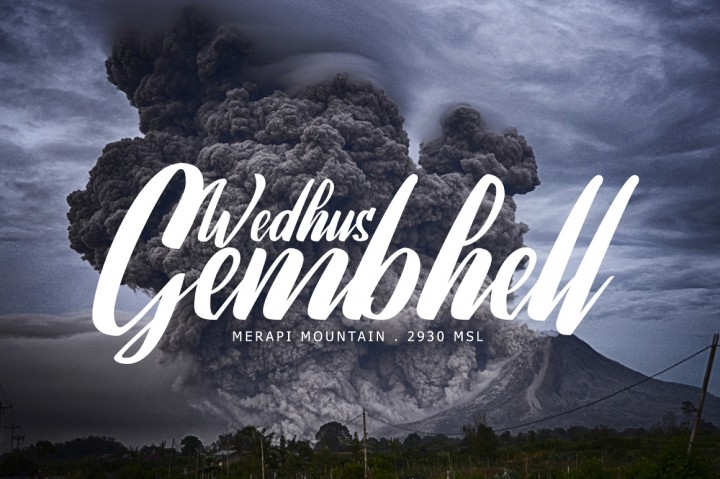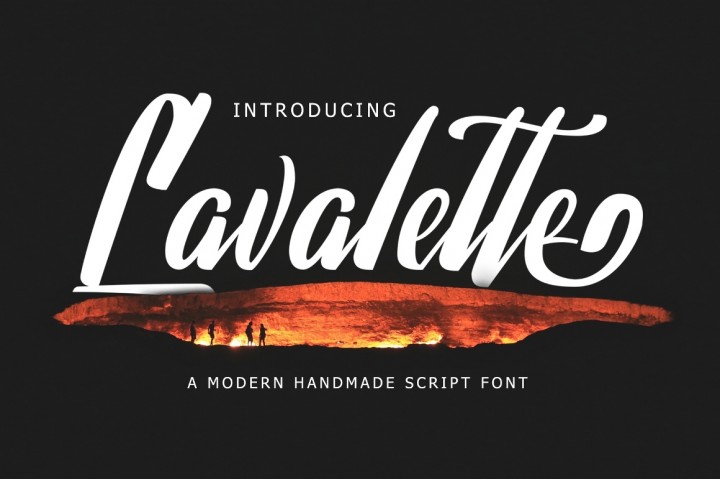
Lavalette Script Font
Introducing Lavalette Script. Comes with many opentype feature, upper and lower case standard character, punctuation and numerals, multilingual characters, ligatures, stylistic alternates, swash, and many more glyph. Lavalette Script is handmade brush font! bold, modern, very natural and playful font. Lavalette is a very beautiful brush font when you create any handwritten quotes, it will look very elegant for personal branding design needs, all sorts of prints, great for wedding invitations, or you created for product promotion, product packaging, merchandising and branding projects. highly recommend to mix with serif fonts!
| Designer Name: | semuthitam |